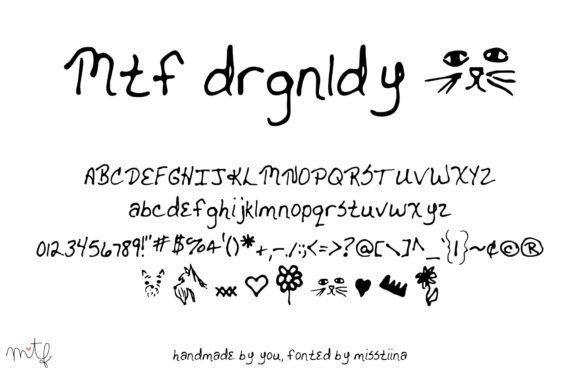
Introducing Drgnldy Font: The Sweet and Innocent Handwritten Font for Relaxed and Youthful Designs
Are you looking for a font that exudes sweetness and innocence? Do you want to create designs that are relaxed, youthful, and perfect for children-related items, food packaging, lovely quotes, or anything cute? Look no further than Drgnldy Font! In this article, we’ll dive into the world of Drgnldy Font and explore its features, uses, and benefits for designers and crafters.
What is Drgnldy Font?
Drgnldy Font is a beautiful, handmade font that is designed to bring a touch of sweetness and innocence to your designs. It’s the perfect choice for anyone who wants to create relaxed and youthful designs that appeal to a wide range of audiences. With its playful and carefree vibe, Drgnldy Font is ideal for a variety of projects, from children’s products to food packaging, quotes, and more.
Key Features of Drgnldy Font
So, what makes Drgnldy Font so special? Here are some of its key features:
- Handwritten style: Drgnldy Font has a beautiful, handwritten style that gives it a personal and unique touch.
- Sweet and innocent: The font’s sweet and innocent vibe makes it perfect for designs that require a playful and carefree feel.
- Relaxed and youthful: Drgnldy Font is designed to create a relaxed and youthful atmosphere, making it ideal for designs that appeal to a younger audience.
- Versatile: The font is versatile and can be used for a wide range of projects, from children’s products to food packaging, quotes, and more.
Uses of Drgnldy Font
Drgnldy Font is a versatile font that can be used for a variety of projects. Here are some ideas to get you started:
- Children’s products: Drgnldy Font is perfect for designing children’s products, such as toys, books, and clothing.
- Food packaging: The font’s playful and carefree vibe makes it ideal for food packaging, such as labels, wrappers, and boxes.
- Lovely quotes: Drgnldy Font is great for creating inspiring and motivational quotes that are perfect for social media, posters, and more.
- Cute designs: The font is perfect for creating cute designs, such as stickers, stationery, and gift tags.
Benefits of Using Drgnldy Font
So, why should you use Drgnldy Font for your designs? Here are some benefits:
- Unique and personal touch: Drgnldy Font adds a unique and personal touch to your designs, setting them apart from others.
- Emotional connection: The font’s sweet and innocent vibe creates an emotional connection with your audience, making your designs more relatable and engaging.
- Versatility: Drgnldy Font is versatile and can be used for a wide range of projects, making it a great addition to your font library.
| Author | Miss Tiina |